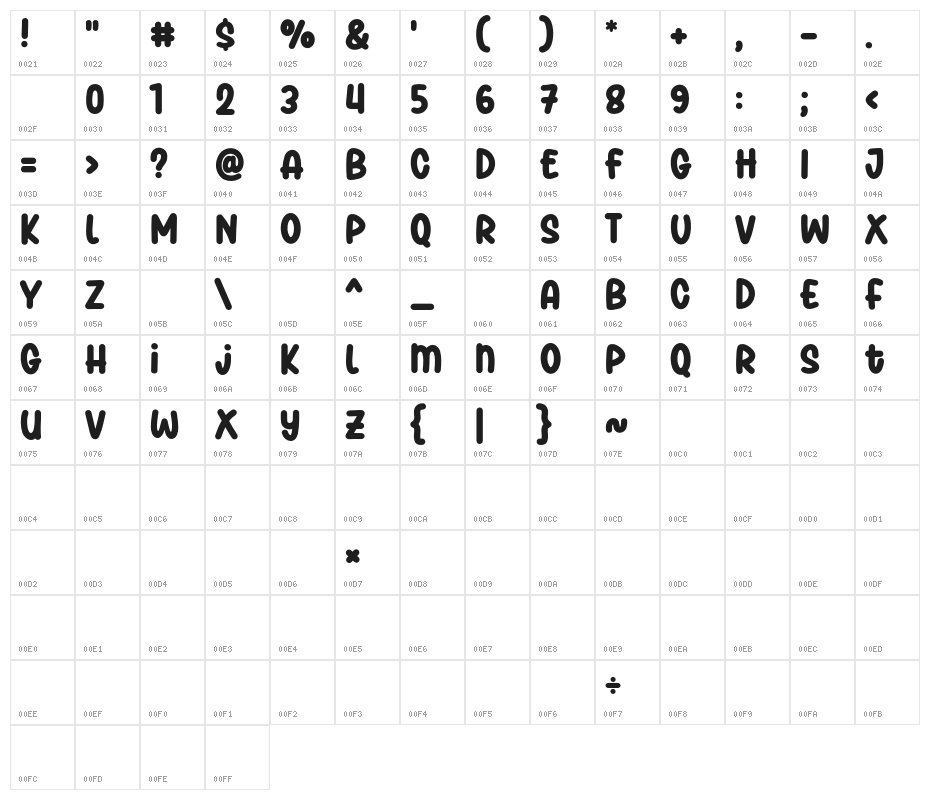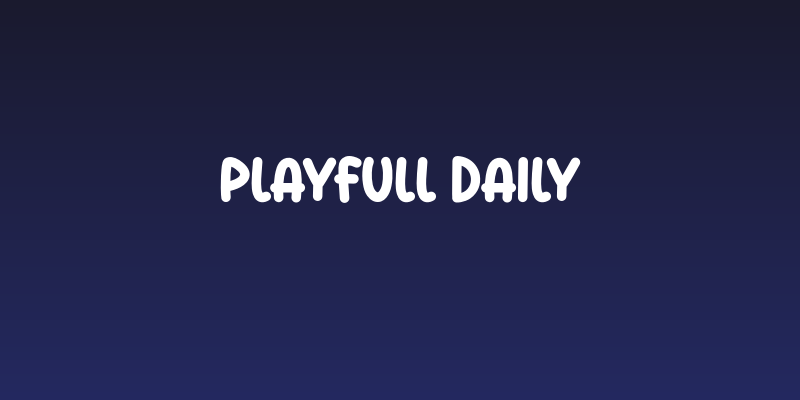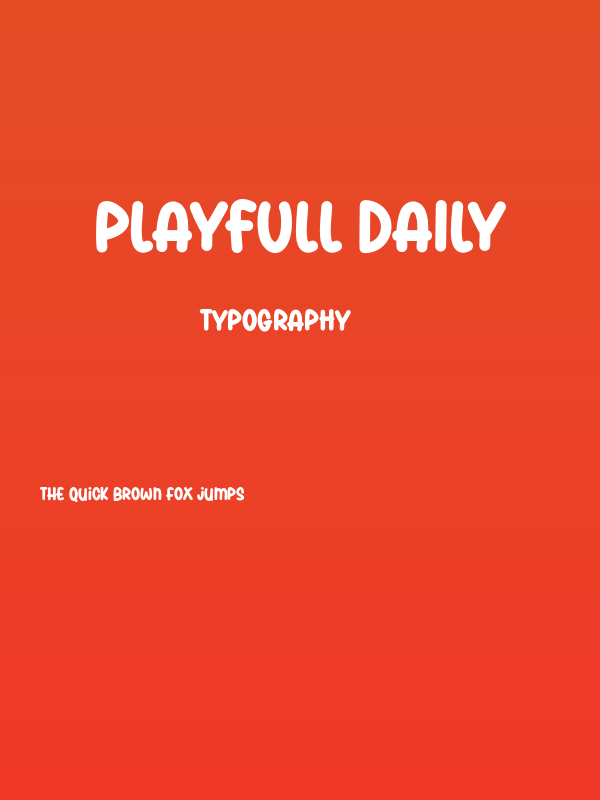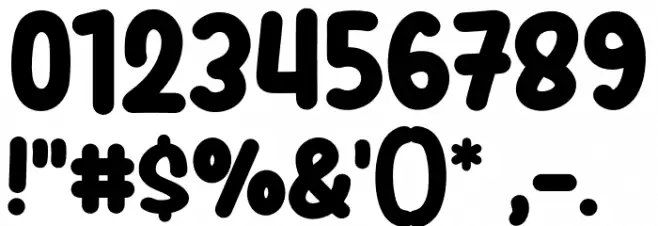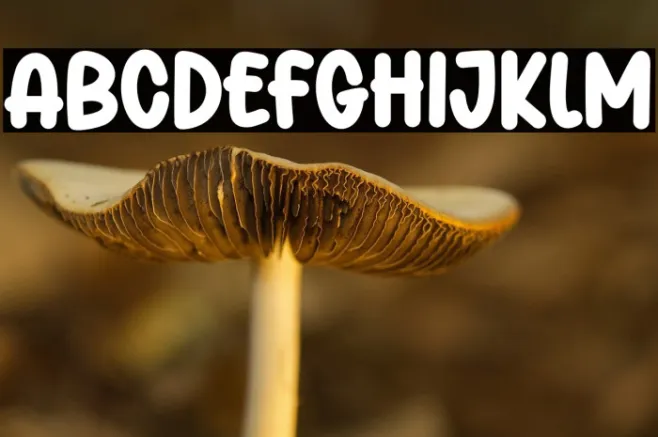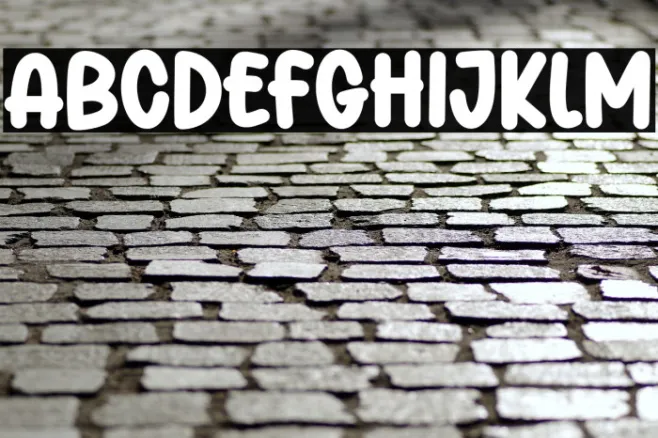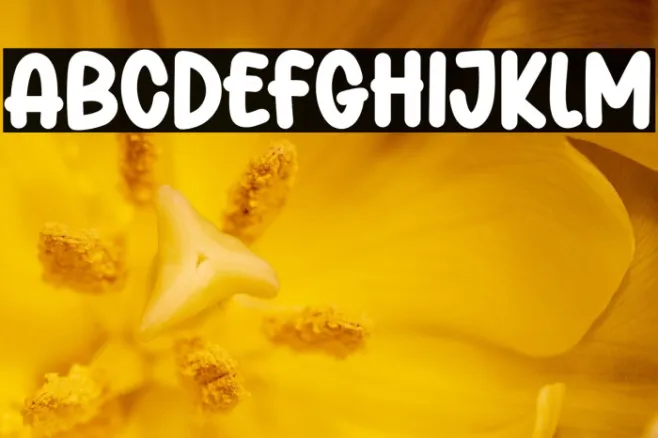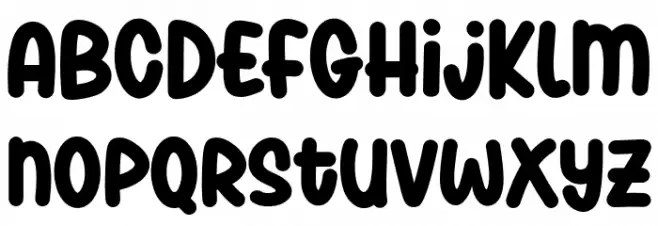
Playfull Daily Font
Playfull Daily Description
This font exudes a playful and whimsical charm, characterized by its bold and rounded letterforms. The strokes are thick and consistent, giving it a strong presence while maintaining a friendly and approachable vibe. The letters are slightly irregular, adding to the casual and fun aesthetic. This style is reminiscent of hand-drawn or cartoonish fonts, making it ideal for projects that aim to convey a sense of joy and creativity. The spacing between characters is tight, which enhances the compact and cohesive look of the text.
| Overall Style | Playful |
| Proposed Projects | Ideal for children's books, playful branding, party invitations, and creative posters. |